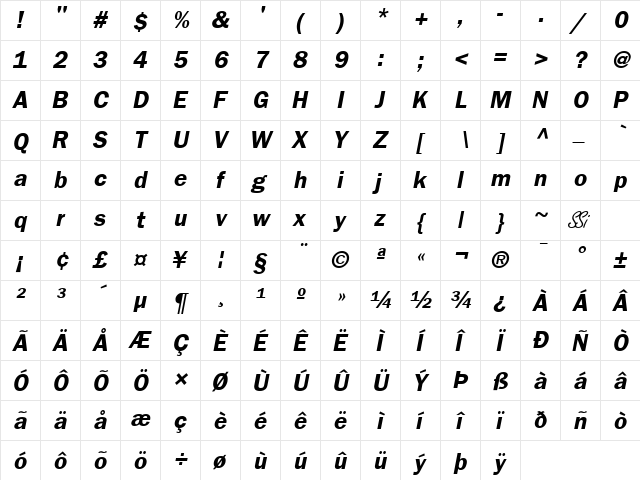
Franklin Gothic SSi Semi Bold Italic
Design Context for Franklin Gothic SSi Typeface
Franklin Gothic SSi has the quiet confidence of well-executed sans-serif typography: versatile, unobtrusive, and dependable at any size. Its italic angle brings a sense of urgency and motion to the letterforms. Its bold stroke weight gives it real presence on the page.
Well-suited to navigation labels, product packaging, and anywhere legibility at scale is essential.
Font Pairing: Use Franklin Gothic SSi for headlines alongside a lighter-weight sans or serif for body copy to establish clear visual hierarchy.
Pro Tip: Use Franklin Gothic SSi for UI labels, navigation, and short-form body copy where clean legibility is the priority.